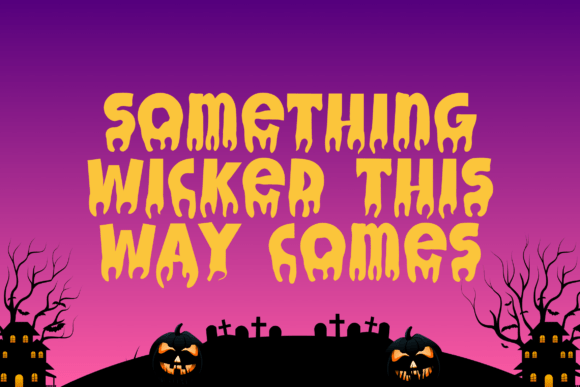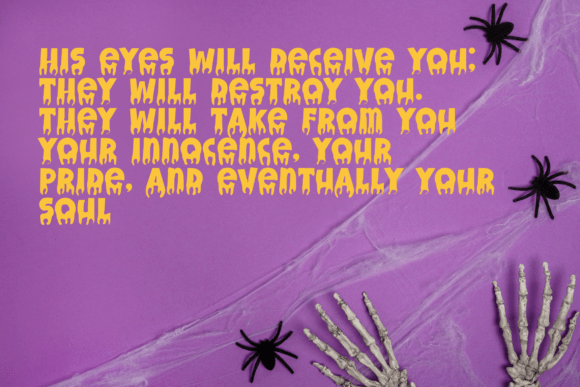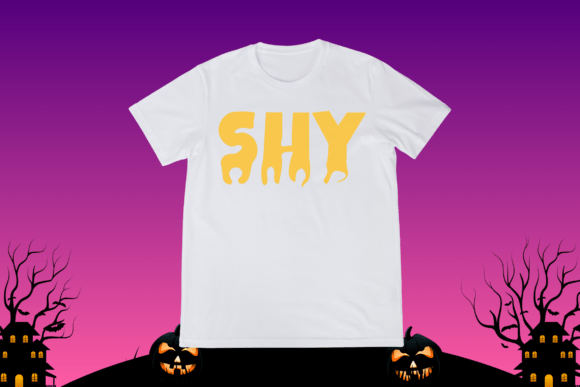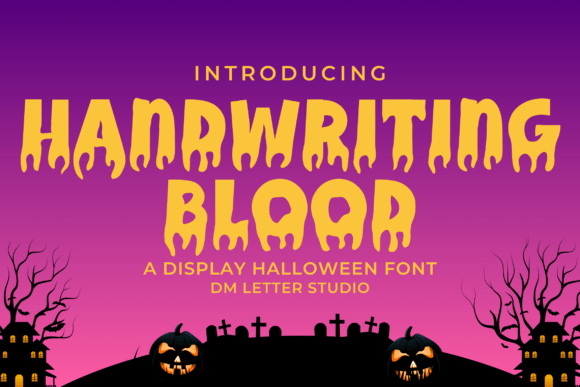
Introduction to Handwriting Blood Font
Introducing Handwriting Blood – an unsettling handwritten font carefully crafted with elements of the macabre.
Emulating horror-inspired themes, its visceral ink strokes invoke a raw sense of dread, making it the cornerstone for all things Halloween-related or menacing Its jagged alphabetistic structures excel when used in horror film placards, suspenseful novel artwork, or any crime-related creative endeavor that requires an undercurrent of fright.